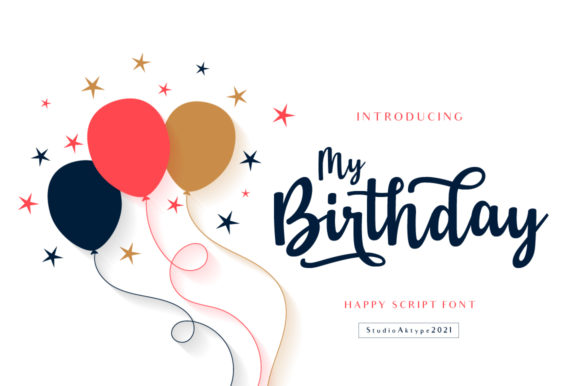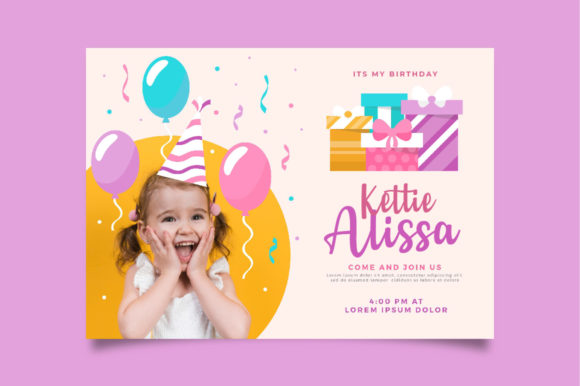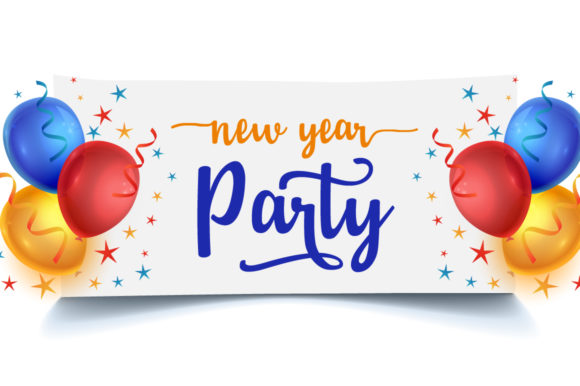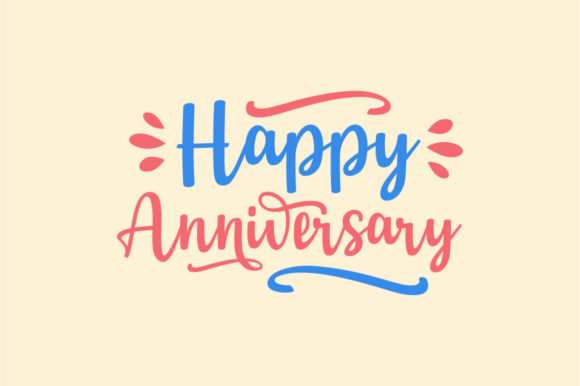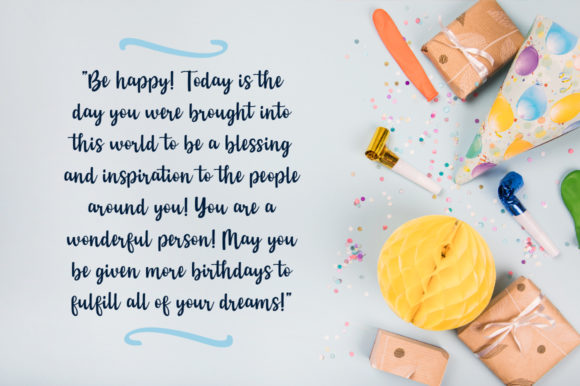
About My Birthday Font
My Birthday is a stunning script handwritten font that adds a touch of elegance and sophistication to any design. With its beautiful swash glyphs, front and rear tails, this font is perfect for creating personalized and eye-catching designs.
The swash glyphs in My Birthday font provide additional decorative elements that can be used to embellish your text. These swashes add flair and style to your designs, allowing you to create visually appealing typography. Whether you’re designing birthday invitations, greeting cards, or any other celebratory project, the swash glyphs in My Birthday font will elevate the overall look and feel.
Additionally, the front and rear tails in My Birthday font further enhance its elegance. These graceful extensions at the beginning and end of each letter create a flowing and sophisticated appearance, giving your text a sense of movement and beauty. Whether used for headlines, logos, or other design elements, the front and rear tails in My Birthday font add a touch of uniqueness and charm.
Overall, My Birthday is a beautiful script handwritten font that brings elegance, sophistication, and versatility to your designs. With its swash glyphs, front and rear tails, and PUA encoding, this font provides you with endless possibilities to create stunning birthday invitations, greeting cards, logos, and more. Let My Birthday font be the perfect choice to make your special occasions even more memorable and beautiful.